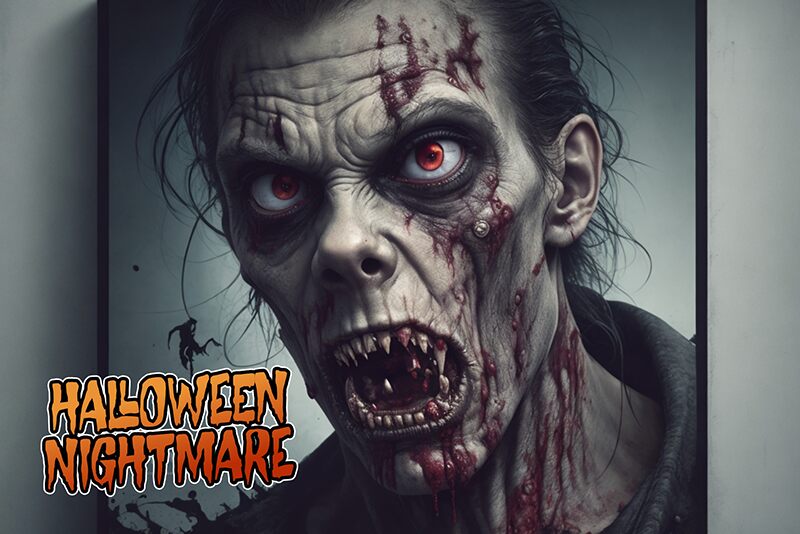
Mystique Darkness font by Horror Font is a free horror font whose style is distorted with a distressed texture giving it a spooky and energetic presence. This decorative font is eye-catching and instantly appealing, making it great for contemporary applications in the horror genre.
The font is fitting for Halloween-themed projects, horror movie posters, theme park attractions, and similar related or unrelated print and digital projects. Use it in the packaging design of products, exceptionally in branding, in creating headings, signs, badges, labels, and more.